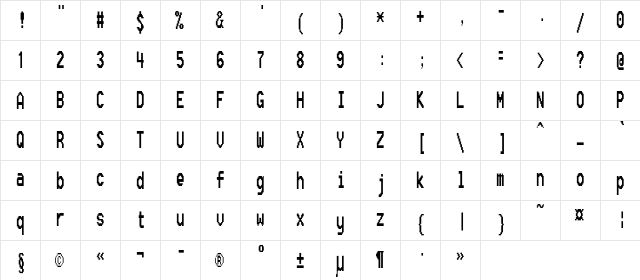
FixSysC Regular
Design Context for FixSysC Typeface
FixSysC offers clean, dependable letterforms without strong stylistic allegiance, making it a practical choice for designers who need flexibility.
Pro Tip: Use FixSysC in both headline and body roles to test its range before committing to a single application.